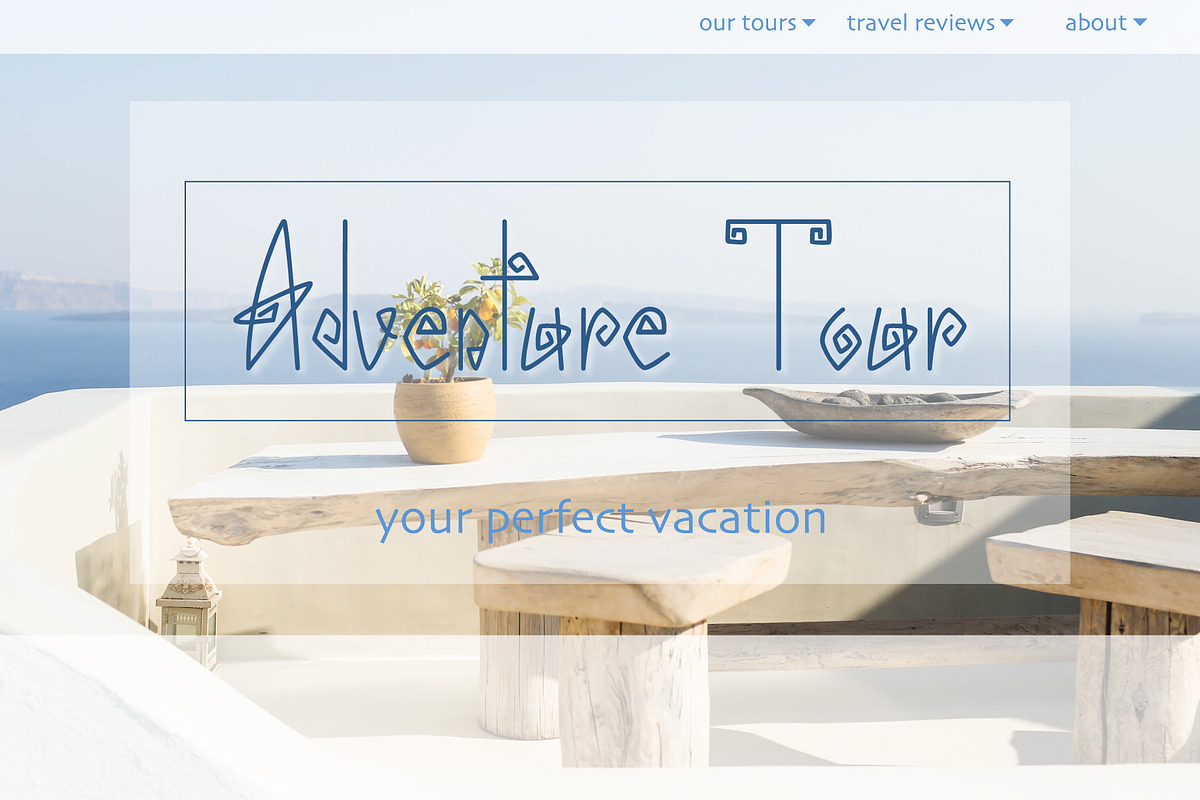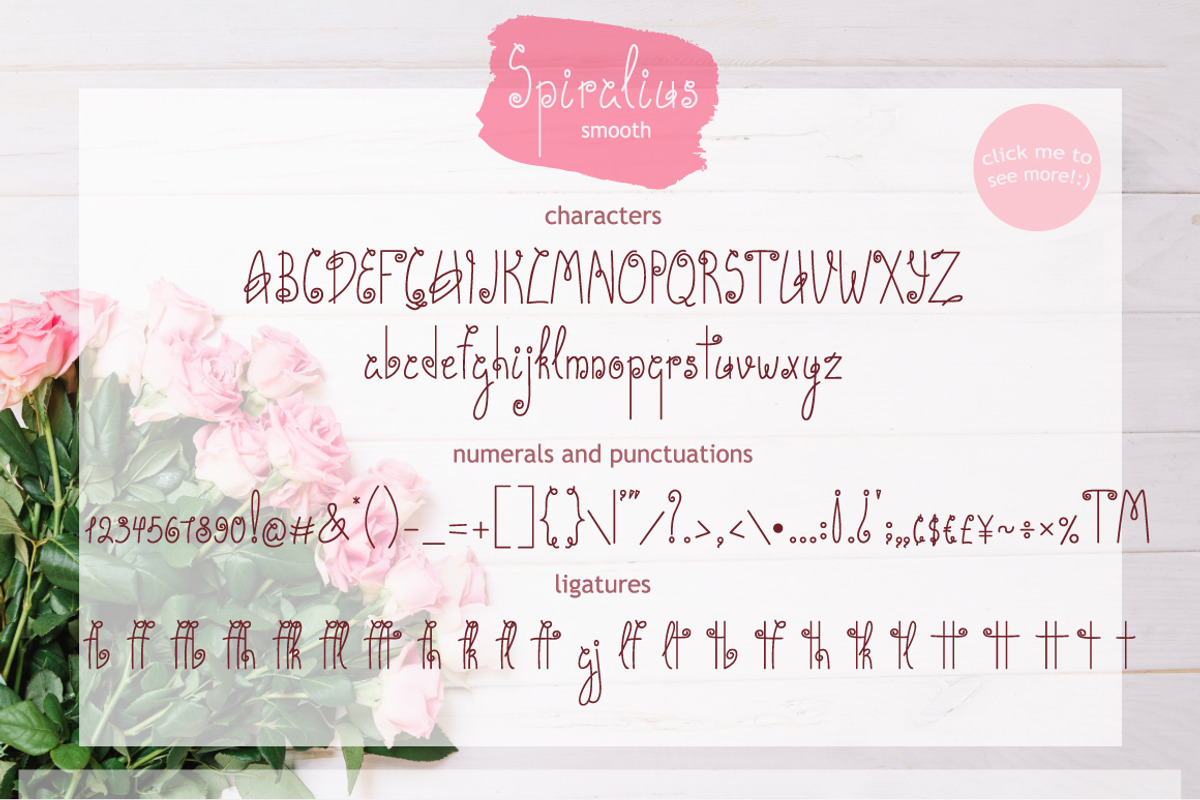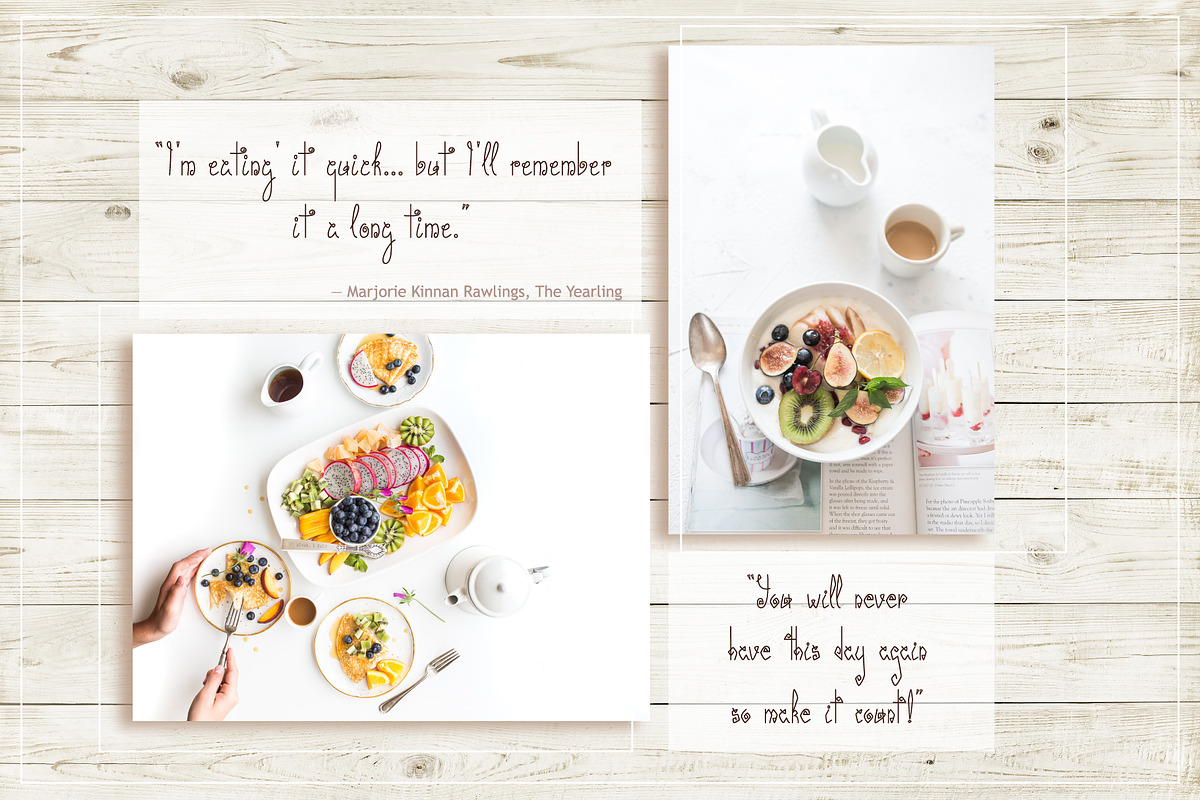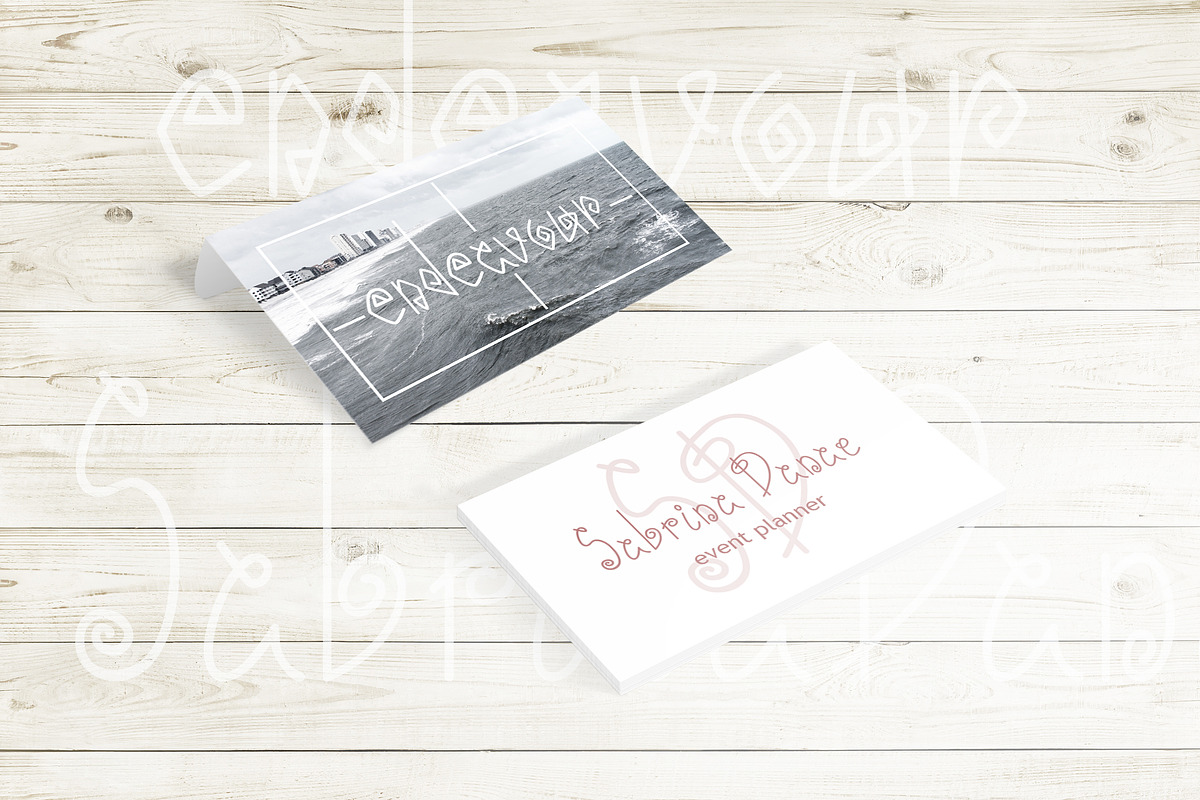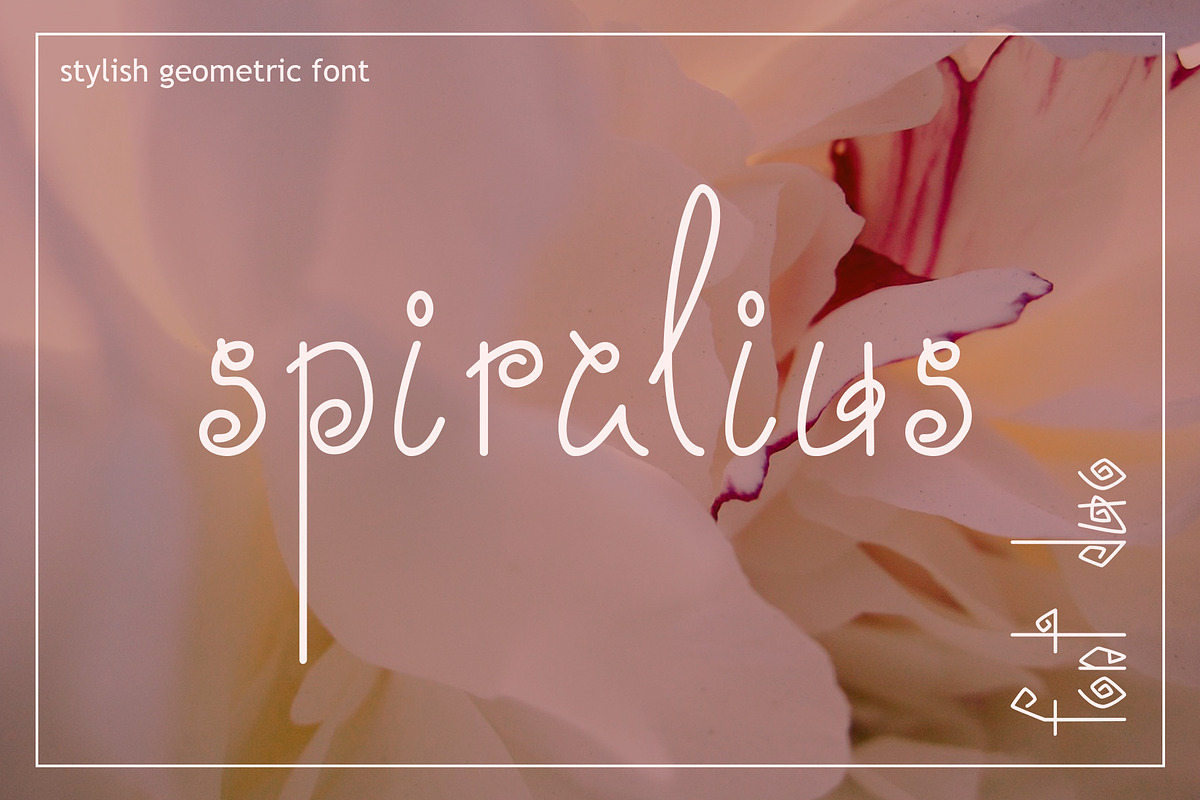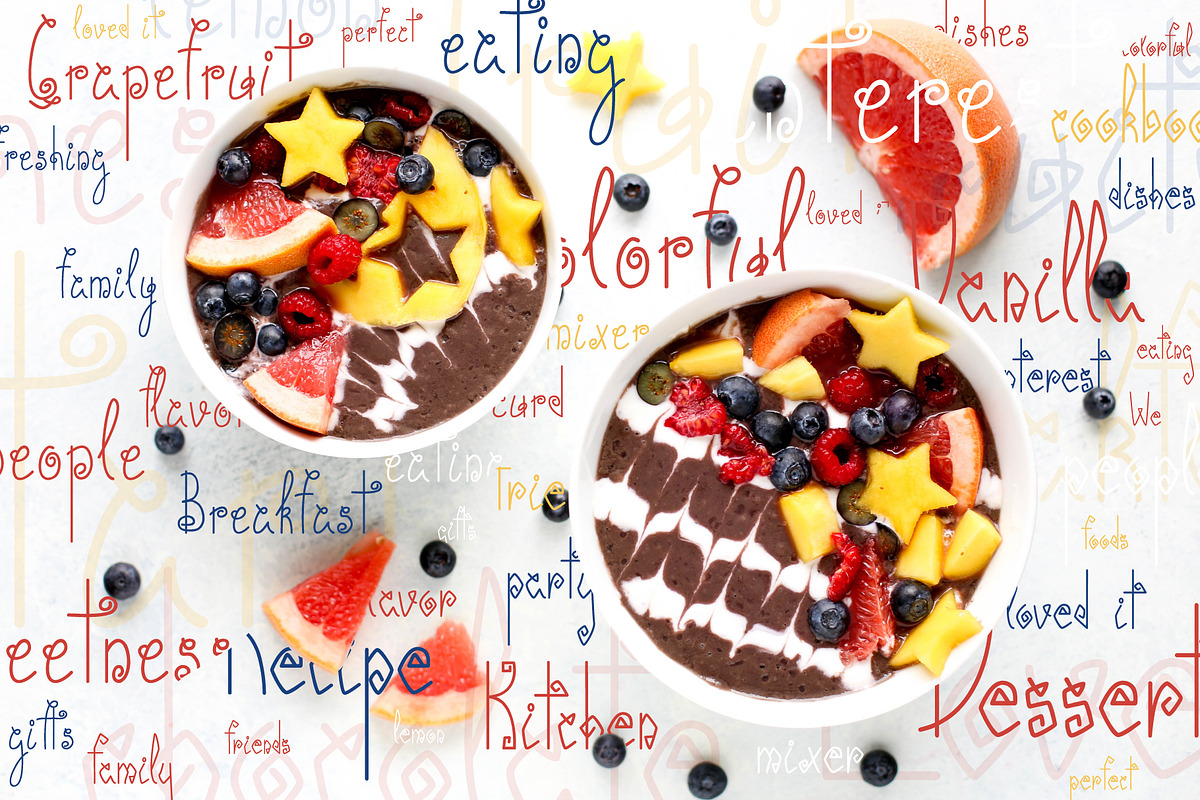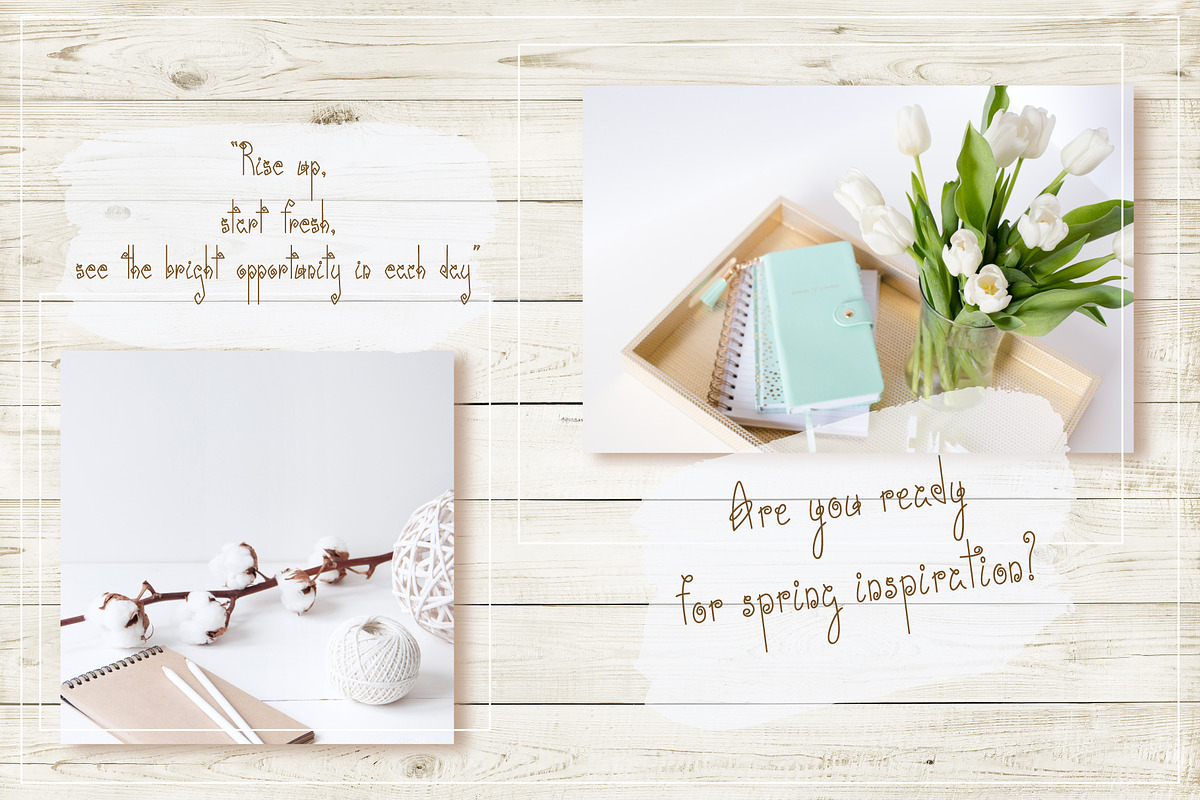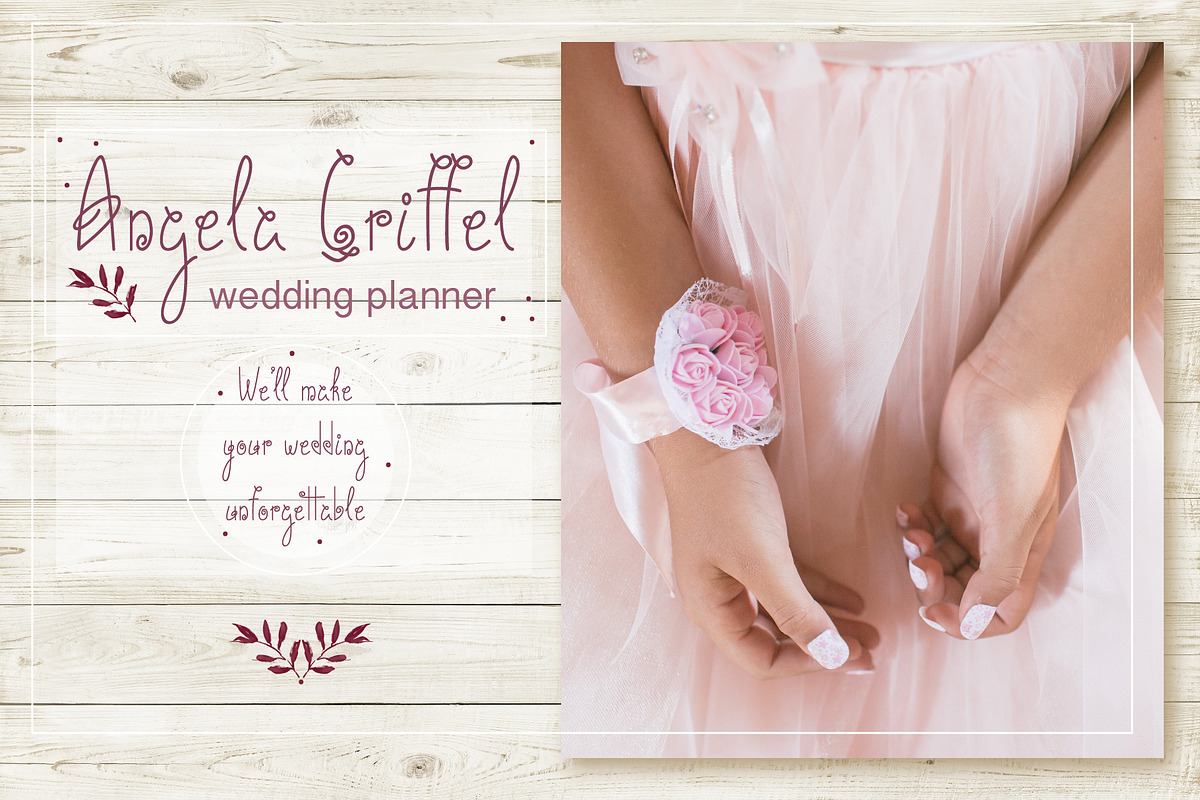
Spiralius Font Duo
Now it's duo! Two related fonts for a wide variety of projects. One is sweet and elegant, other's - strict and seasoned!
These fonts will look great on all your designs - from logos, greetings and company branding to wedding menu, home frame, book covers, magazines and more.
Notice ligatures - they’re displayed in the presentation.